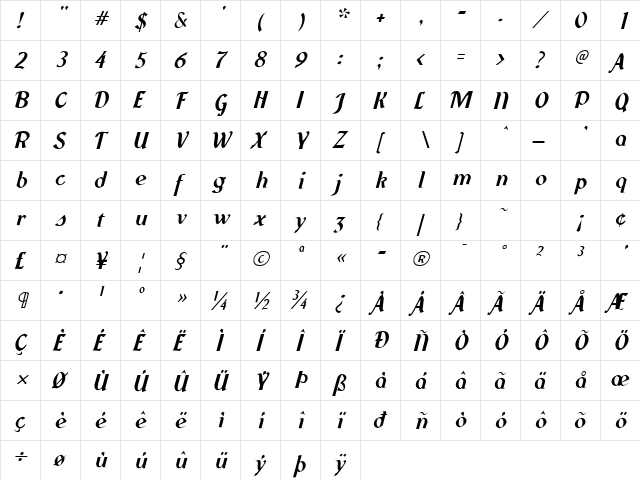
Federhozen Bold Italic
Design Context for Federhozen Typeface
Federhozen offers clean, dependable letterforms without strong stylistic allegiance, making it a practical choice for designers who need flexibility. Its italic angle brings a sense of urgency and motion to the letterforms. Its bold stroke weight gives it real presence on the page.
Pro Tip: Use Federhozen for emphasis, pull quotes, and subheadings where its slanted energy can add rhythm to the layout.